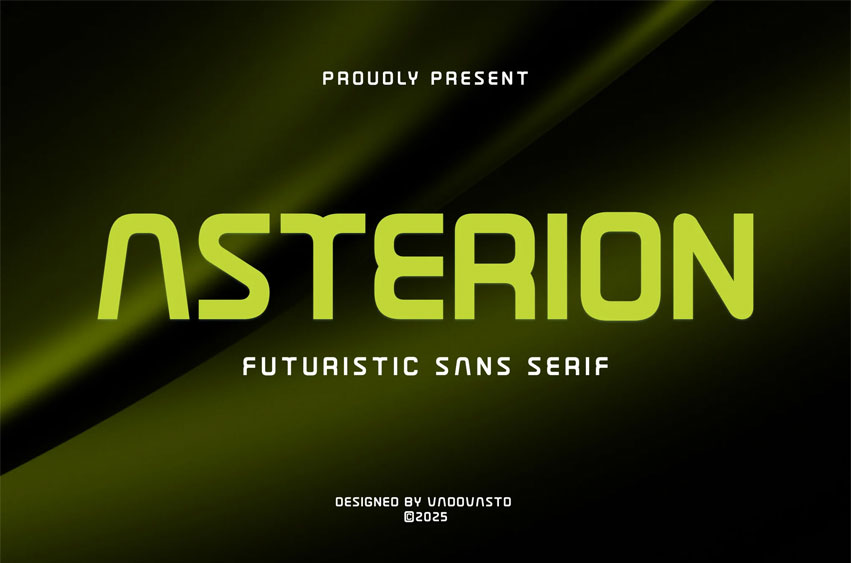
Asterion Font is a futuristic sans serif typeface designed to convey innovation and sleek modernity. With rounded edges, geometric proportions, and a clean visual rhythm, Asterion is perfect for tech-focused branding, sci-fi posters, digital interfaces, and creative titles.
Its smooth and minimalist forms offer both readability and a strong presence, making it ideal for projects that aim to blend modern aesthetics with futuristic vibes.